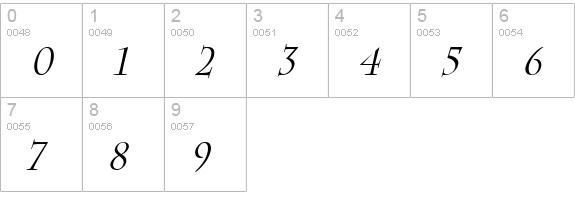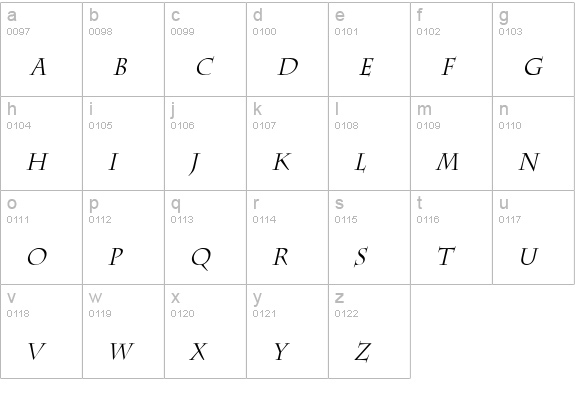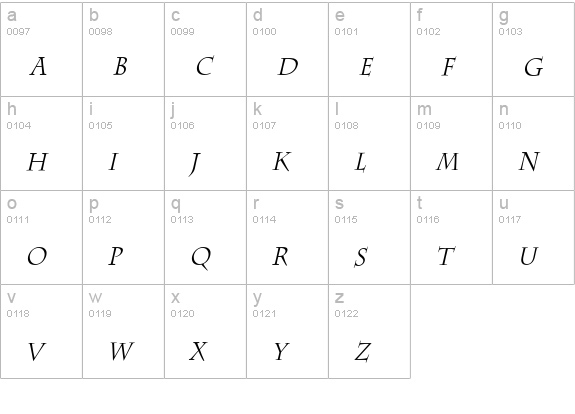
Chaz Condensed Italic Font Details
Chaz Condensed Italic is a distinctive, condensed-width, italic variant in the Chaz typeface family \xE2\x80\x94 well suited to design and typography projects.
Chaz Condensed Italic font is a sleek and modern typeface that exudes sophistication and elegance. Its italicized design adds a touch of flair and style to any design project. With its condensed form, Chaz is perfect for creating eye-catching headlines and attention-grabbing text. What sets Chaz Condensed Italic font apart is its versatility - it can be used for a wide range of design applications, from branding and advertising to editorial design and web graphics. Whether you're looking to convey a sense of modernity or sophistication, Chaz has you covered. Best of all, Chaz Condensed Italic font is available for free download at FontsMarket.com. This means you can add this stylish typeface to your font collection without breaking the bank. Don't miss out on the opportunity to elevate your design projects with the elegant and stylish Chaz Condensed Italic font. Download it today and let your creativity soar!